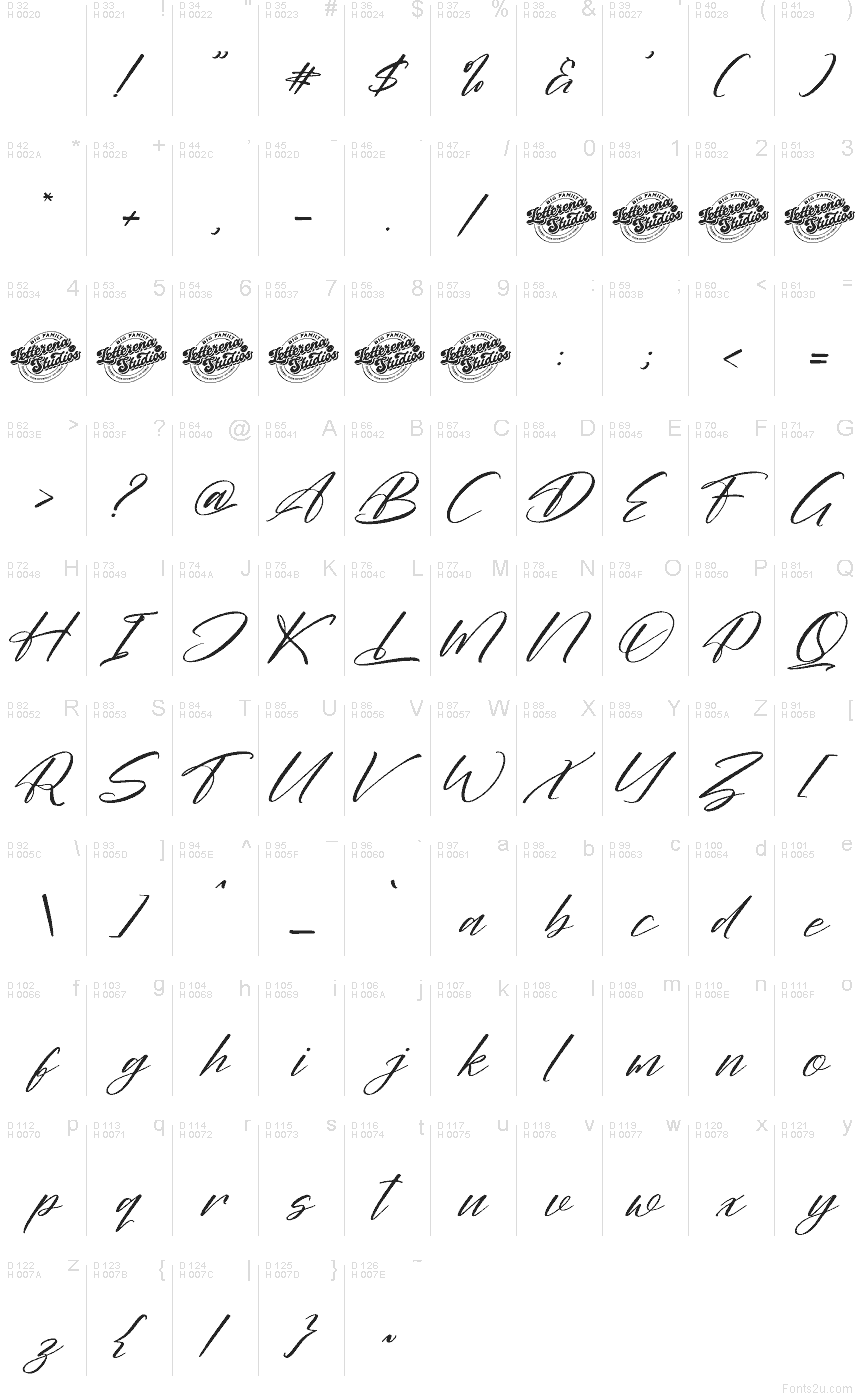
Dalinthy DEMO VERSION Italic
Dalinthy Italic font by Letterena Studios is a free handwritten font in the graceful Dalinthy typeface family. Its flowing, ink-like strokes and gentle rightward sweep feel like a confident signature penned with a fine brush, giving every word a sense of movement and ceremony. The letters link with smooth, looping curves, creating lush, continuous lines that feel both polished and romantic rather than overly decorative or fussy.
Using Dalinthy Italic, your typography immediately takes on an elegant, occasion-ready mood that shines on wedding invitations, save-the-dates, boutique logos, product packaging, social media quotes, and personal stationery. This free font works beautifully when you keep it large and spacious, letting those long tails and swashes breathe. For a refined look, pair Dalinthy Italic with a simple geometric sans serif for body text to balance its expressive script.